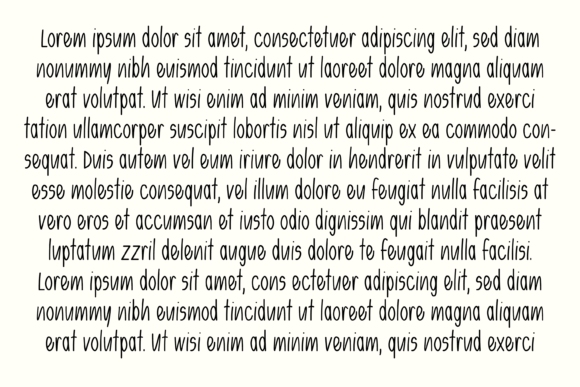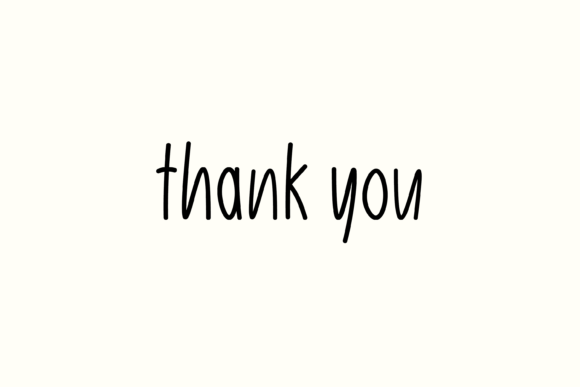
Introducing Amelia Font: The Simple yet Whimsical Handwritten Display Font
Are you tired of using the same old fonts in your designs? Look no further than Amelia Font, a simple and friendly handwritten display font that’s sure to brighten up your projects. With its whimsical and quirky touch, Amelia Font is perfect for designers and crafters looking to add a personal touch to their work.
What Makes Amelia Font Special?
Amelia Font is a unique and versatile typeface that’s perfect for a wide range of design applications. Its simple yet elegant design makes it ideal for logos, wedding invitations, quotes, advertisements, print, magazines, and more. The font’s friendly and approachable feel makes it perfect for designers who want to create a warm and inviting atmosphere in their designs.
Key Features of Amelia Font
- Simple and Friendly Design: Amelia Font has a clean and straightforward design that’s easy to read and understand.
- Whimsical and Quirky Touch: The font’s unique and playful feel adds a touch of personality to your designs.
- Versatile: Amelia Font is perfect for a wide range of design applications, from logos and wedding invitations to quotes and advertisements.
Amelia Font is perfect for designers and crafters who want to add a personal touch to their work. Whether you’re creating a logo, designing a wedding invitation, or crafting a quote, Amelia Font is the perfect choice. The font’s friendly and approachable feel makes it ideal for designers who want to create a warm and inviting atmosphere in their designs.
Use Amelia Font for:
- Logos: Create a unique and memorable logo for your business or brand with Amelia Font.
- Wedding Invitations: Add a touch of elegance and sophistication to your wedding invitations with Amelia Font.
- Quotes: Create inspiring and motivational quotes with Amelia Font.
- Advertisements: Use Amelia Font to create eye-catching and effective advertisements.
- Print: Use Amelia Font in your print designs, such as brochures, flyers, and posters.
- Magazines: Add a touch of personality to your magazine designs with Amelia Font.
Why Choose Amelia Font?
There are many reasons why you should choose Amelia Font for your design projects. Here are just a few:
- Unique and Versatile: Amelia Font is a unique and versatile typeface that’s perfect for a wide range of design applications.
- High-Quality Design: Amelia Font has a high-quality design that’s sure to impress your clients and audience.
In conclusion, Amelia Font is a simple and friendly handwritten display font that’s perfect for designers and crafters looking to add a personal touch to their work. With its whimsical and quirky touch, Amelia Font is ideal for a wide range of design applications, from logos and wedding invitations to quotes and advertisements. So why wait? Download Amelia Font today and start creating amazing designs!